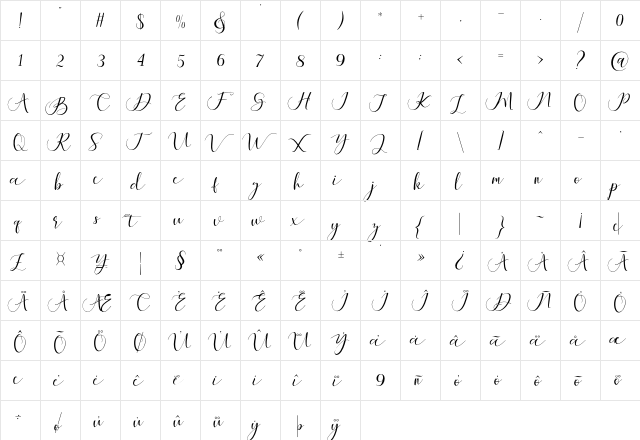
Maheria Script Regular
| Foundry | Munawir/mightype |
| Designer | Munawir |
Design Context for Maheria Script Typeface
Maheria Script brings a calligraphic fluidity to the page — its connecting strokes and expressive curves give it an unmistakably human quality.
Font Pairing: Combine Maheria Script with a simple geometric sans for maximum contrast — the tension between flowing curves and clean structure is a classic typographic pairing.
Pro Tip: Pair Maheria Script with a clean sans-serif for supporting text. The contrast between fluid script and geometric structure creates an elegant typographic hierarchy.